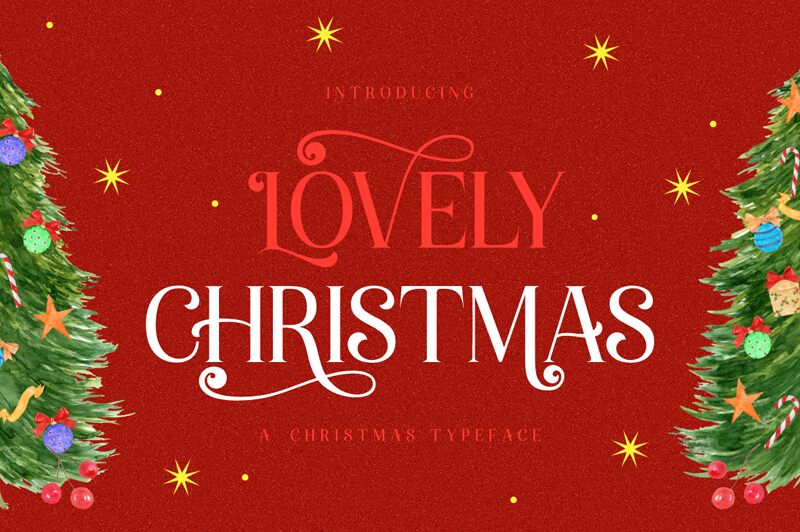
Lovely Christmas font by Reyrey Blue captures the essence of the festive season with its elegant serif style. This font boasts an artistic flair, featuring delightful swirls and classy details that enhance its sophisticated appearance. Perfect for holiday-themed designs, Lovely Christmas is ideal for greeting cards, invitations, and festive branding. Its distinct charm lies in its ability to evoke warmth and elegance simultaneously.
Whether you're designing a cozy winter flyer or a classy holiday menu, this free font adds a touch of grace and celebration to your projects. Download Lovely Christmas font today to infuse your designs with seasonal magic and timeless style.